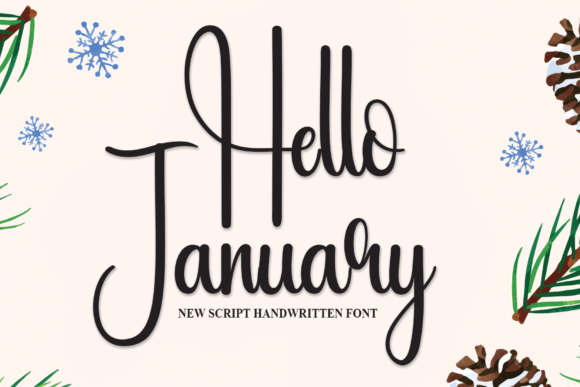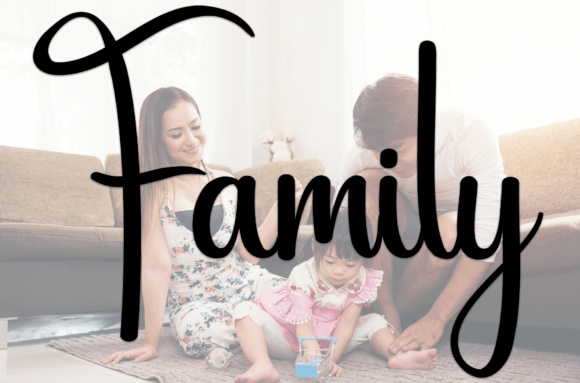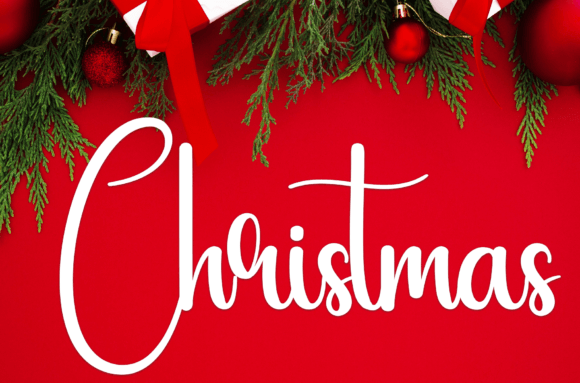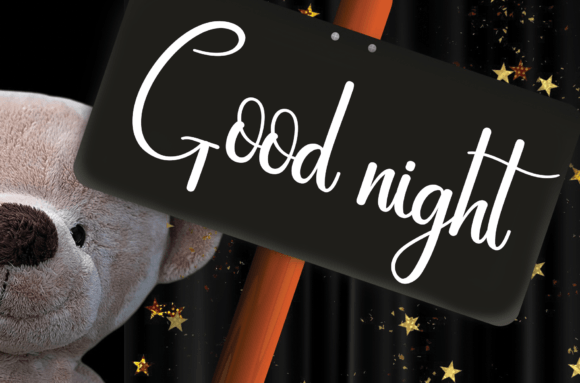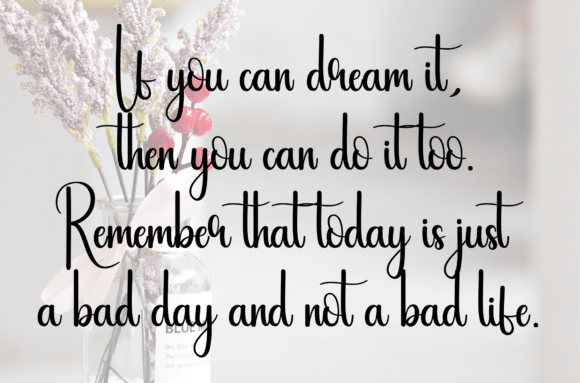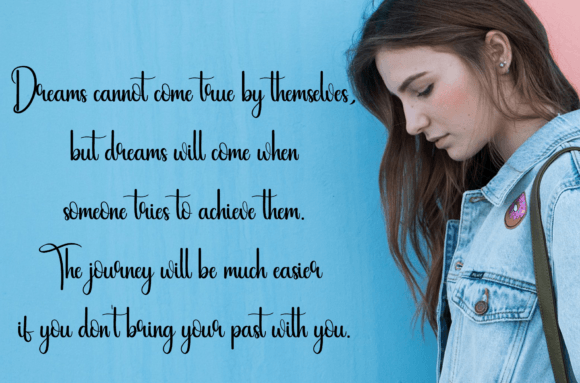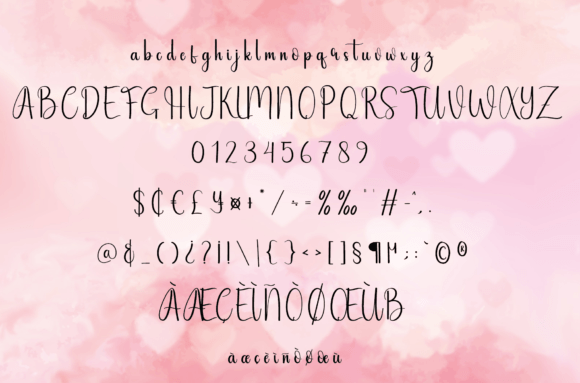
Hello January Font
About Hello January Font
Hello January is a sweet and friendly handwritten font that brings warmth and charm to any design. With its playful and relaxed style, it’s the perfect choice for creative projects that need a personal and inviting touch. Whether you’re designing wedding invitations, heartfelt cards, branding elements, or digital content, Hello January adds a soft and joyful feeling that draws people in.
Crafted with a natural flow and elegant curves, Hello January mimics real handwriting while maintaining clean legibility. Its smooth strokes and gentle character shapes make it feel familiar and delightful. This font is ideal for designers, crafters, and small business owners looking to bring a little friendliness into their visuals.
Where to Use Hello January
The charm of Hello January lies in its versatility. It works across a wide range of creative applications:
• Wedding Invitations & Save the Dates – Soft curves create an elegant, romantic feel
• Greeting & Holiday Cards – Add a handwritten, heartfelt message
• Social Media Graphics – Use it for captions, quotes, or announcements
• Logo Design – Especially for boutiques, florists, or handmade shops
• Stationery & Planners – Bring style to journals, to-do lists, or calendars
• Packaging – Label your products with a cozy and creative flair
• Blog Headers & Web Design – A friendly font for lifestyle or family-focused content
Whether you’re designing for a special occasion or creating everyday content, Hello January has the power to make your words feel warm and personal.
• Beautiful uppercase and lowercase letters
• Full punctuation, numbers, and multilingual support
• Balanced spacing and smooth baseline for elegant composition
Its clean, flowing appearance ensures it remains legible at all sizes while still looking handcrafted. You can pair Hello January with serif or sans-serif fonts for contrast, or let it shine on its own as a display font.
Why You’ll Love It
Hello January is the kind of font that feels like a personal note from a friend. It brings a gentle, human touch to your projects—ideal in a digital world that often feels cold and impersonal. Its joyful and sweet personality will help your design stand out while still feeling approachable.
Whether you’re designing for personal use, a brand, or a client, this font will bring your creative ideas to life with style and sincerity.